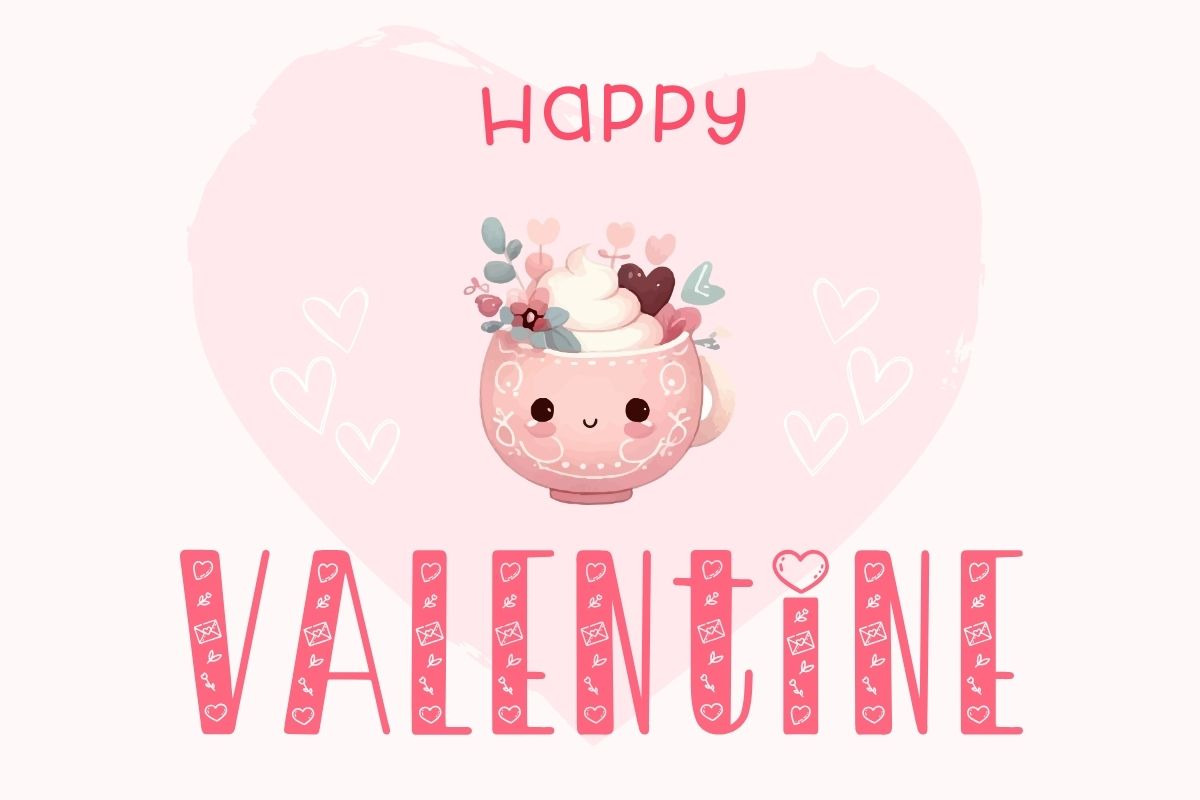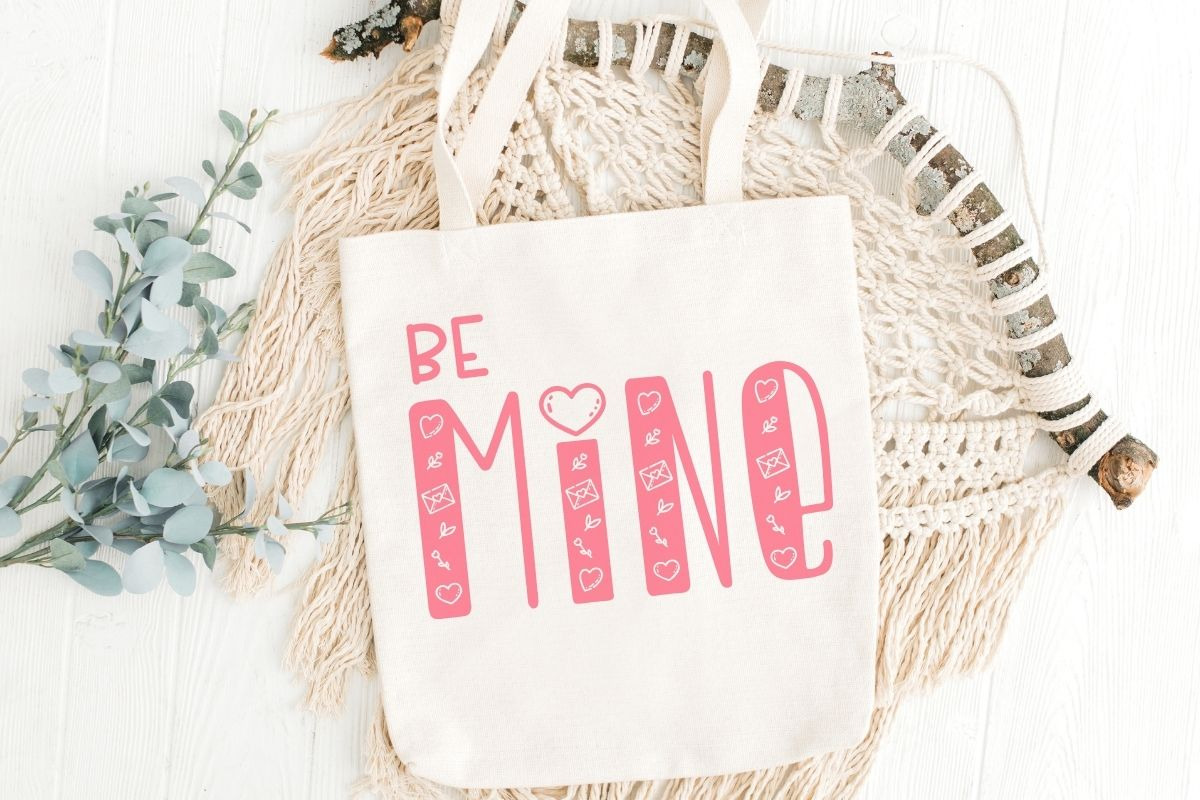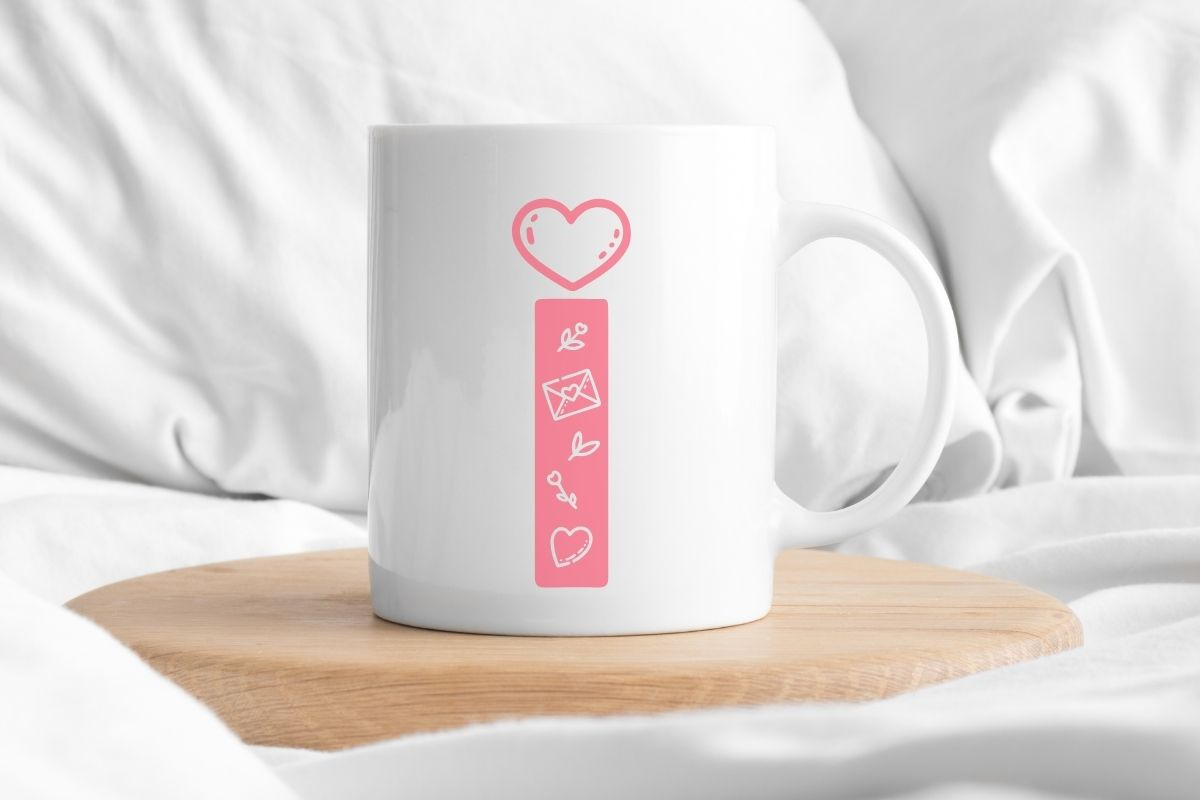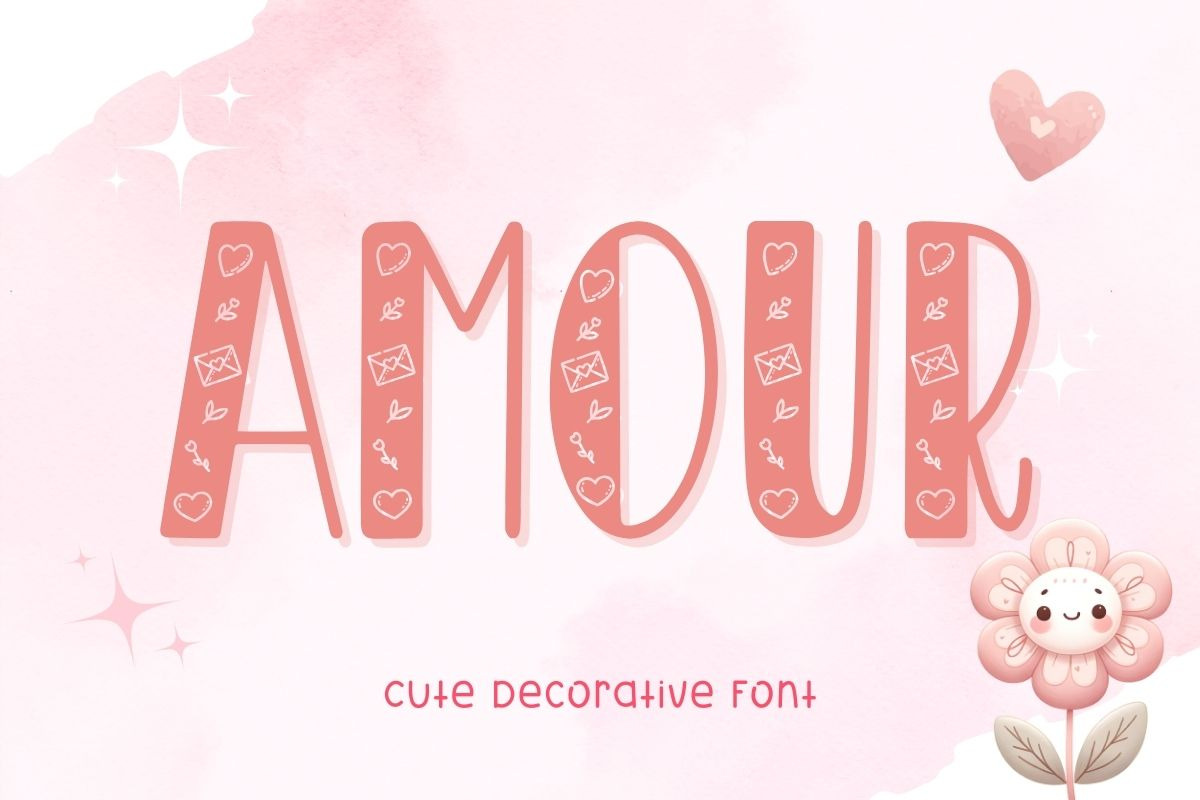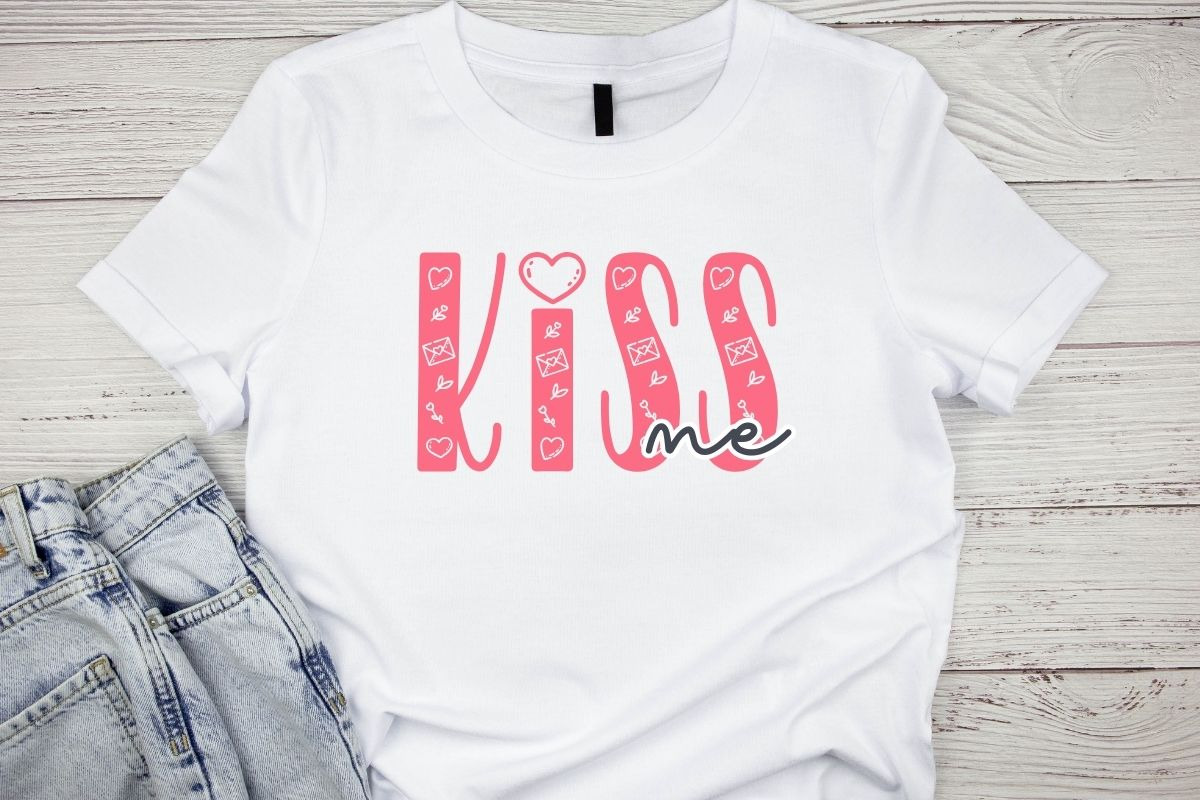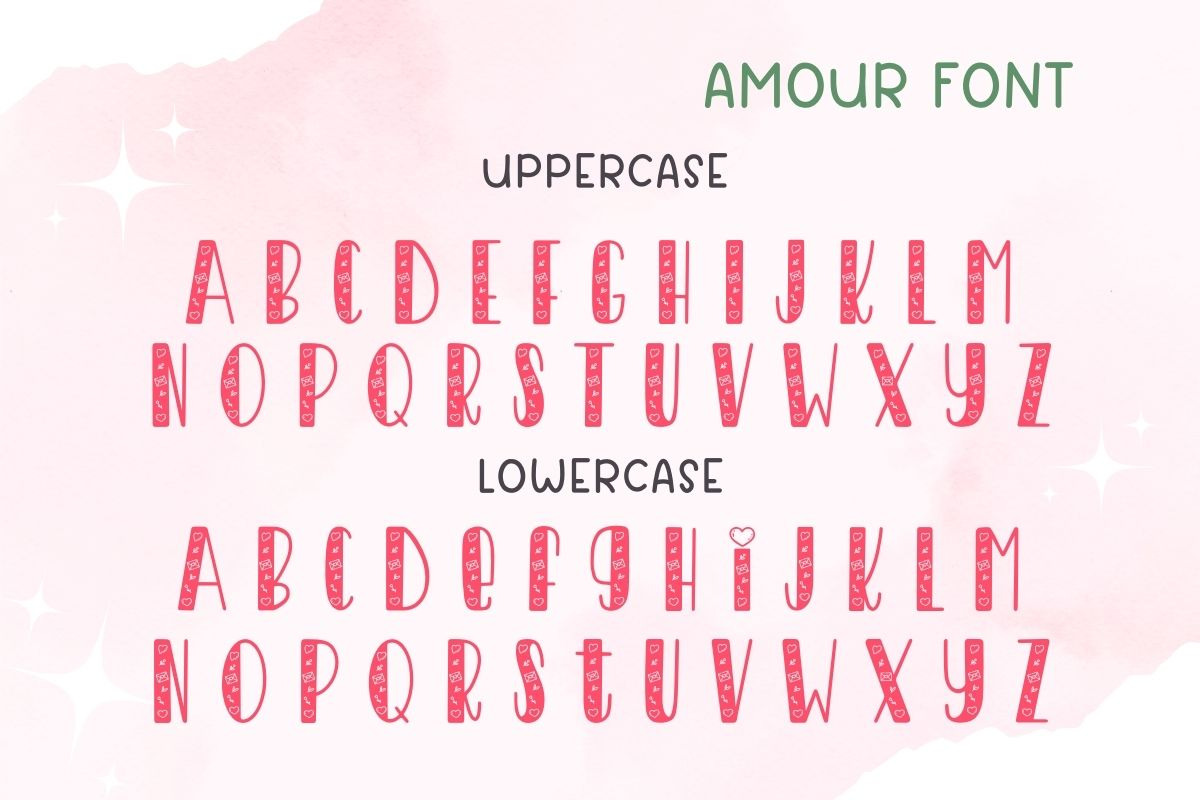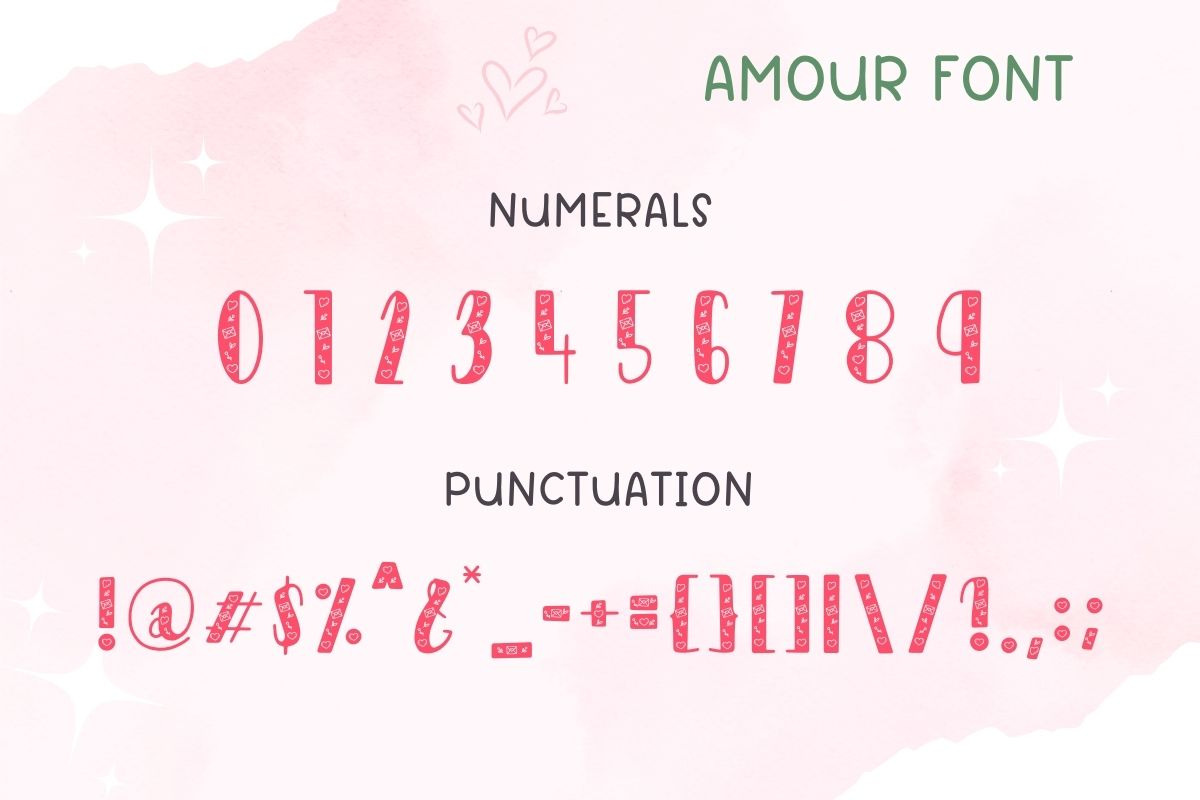
Amour - Cute Decorative Font
Amour Font, Cute Decorative Font, is a sweet and charming font perfect for Valentine crafts, love-themed projects, wedding invitations, greeting cards, apparel, packaging, and more. This font features adorable decorative elements such as hearts, love letters, and flowers inside the letters, bringing a delightful and playful vibe to your designs.
Amour Font includes OTF and TTF files, featuring uppercase, lowercase, numerals, and punctuation. It also comes with bonus illustrations. Whether you're creating cute t-shirts, mugs, tote bags, greeting cards, or digital products, this font offers endless creative possibilities.